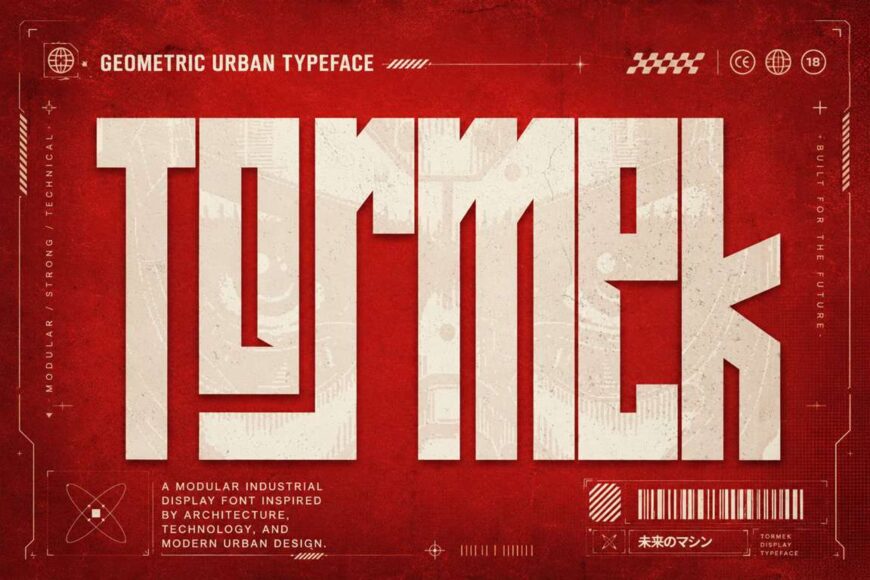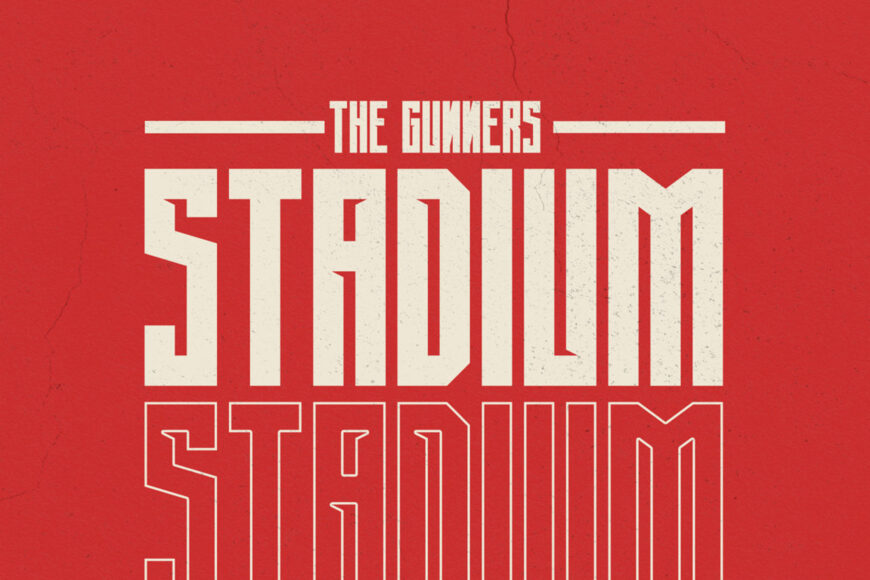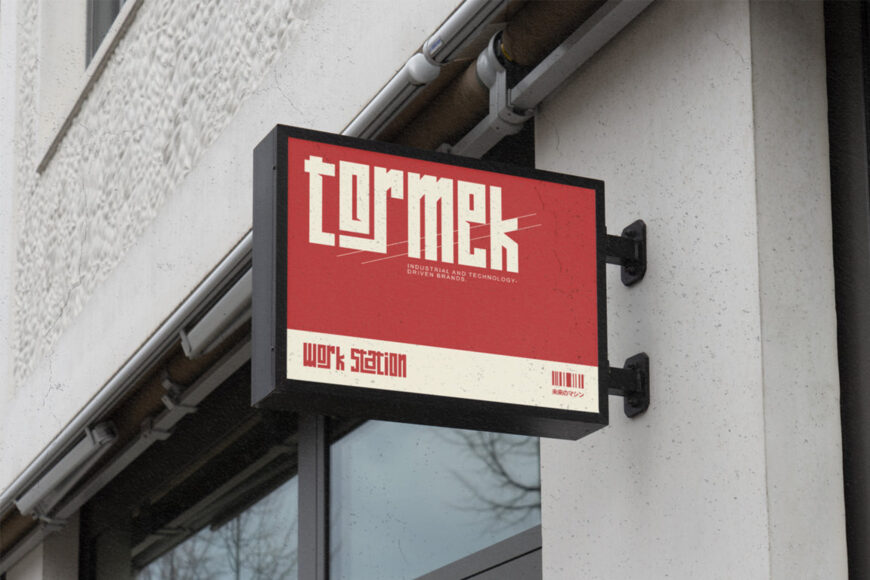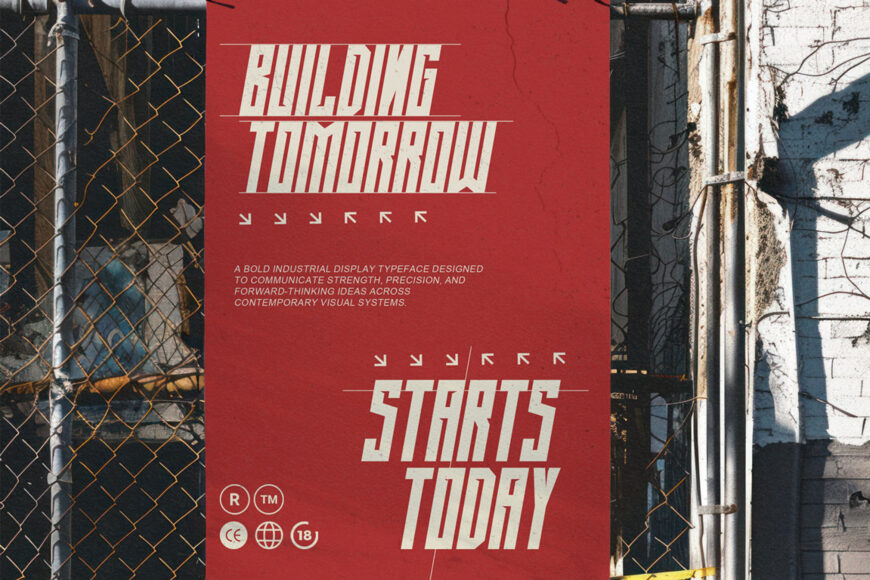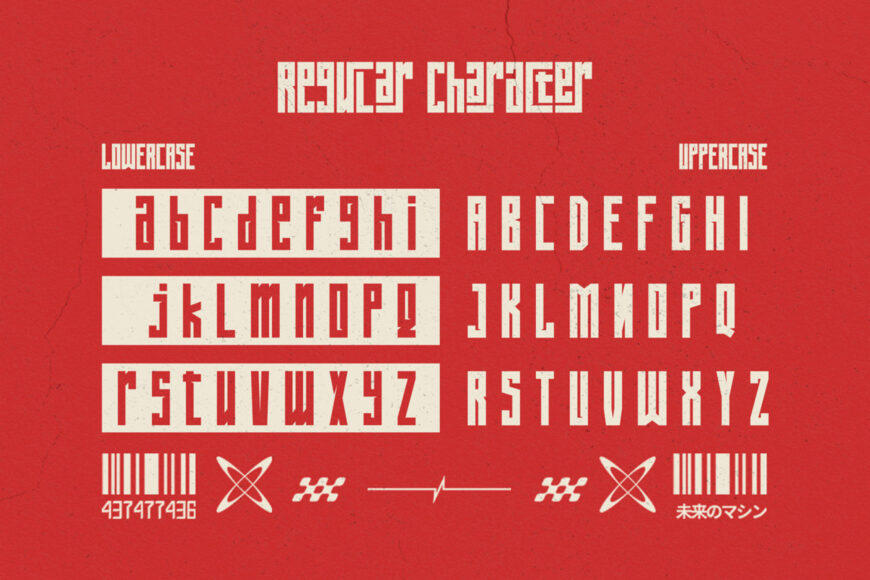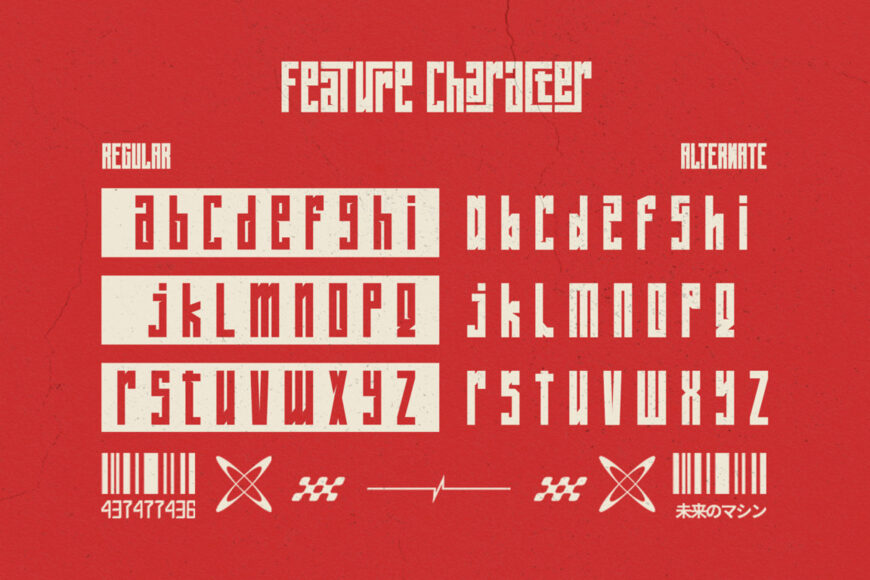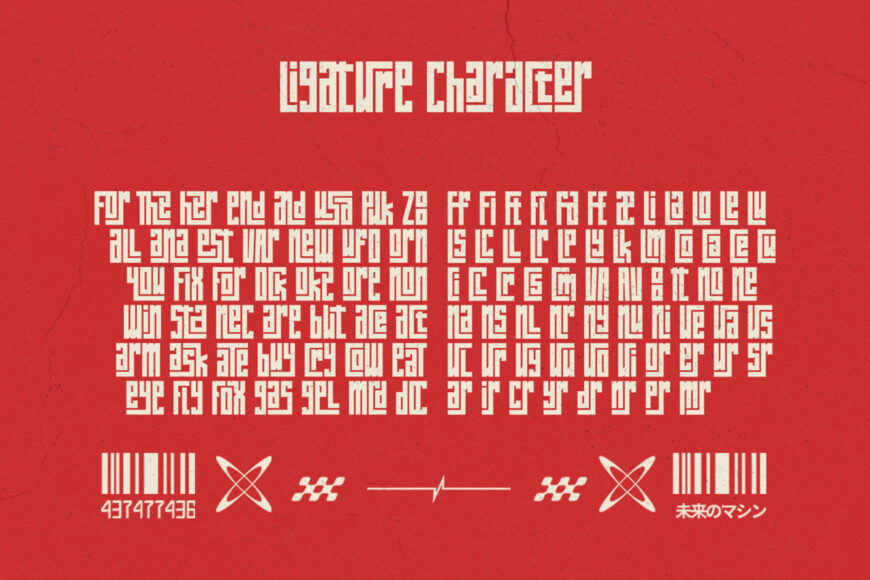
Tormek is a bold geometric urban display font inspired by architecture, technology, industrial graphics, and modern city design. Featuring uppercase and lowercase letters, alternates, ligatures, numerals, punctuation, symbols, and multilingual support, Tormek is perfect for futuristic logos, posters, gaming, packaging, sports, streetwear, automotive graphics, and technology branding.